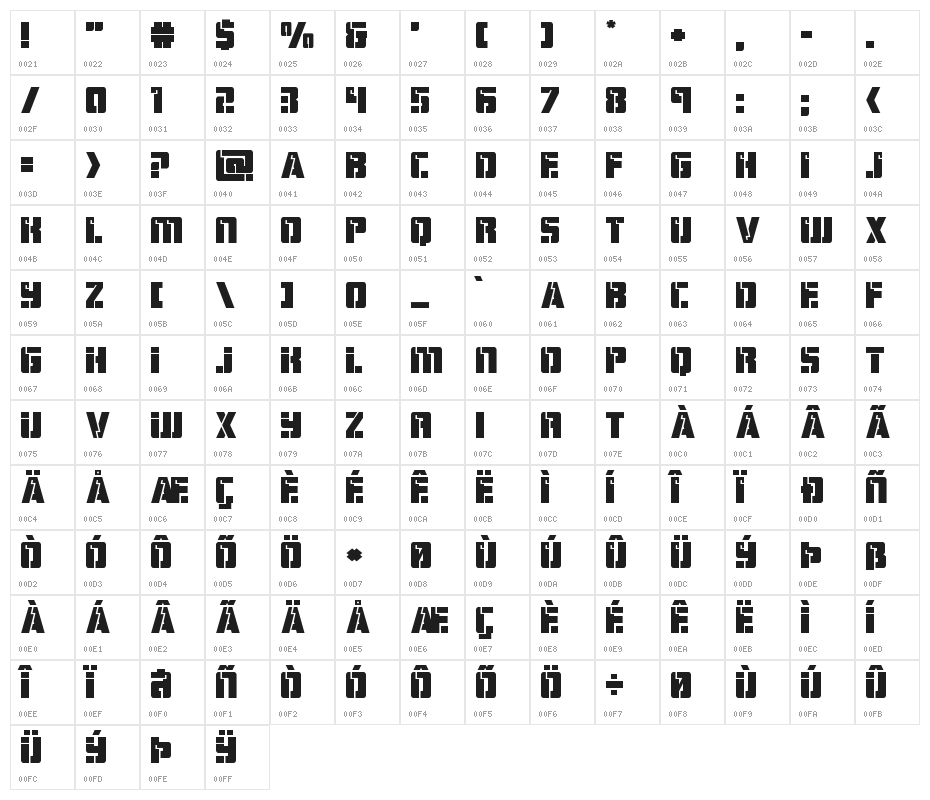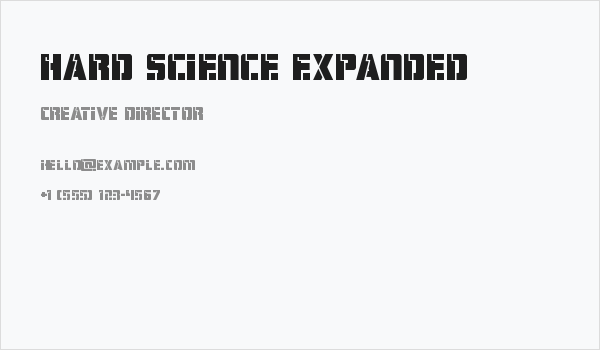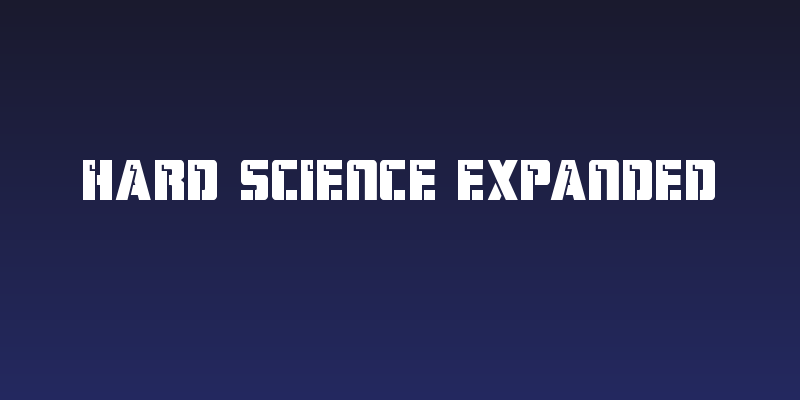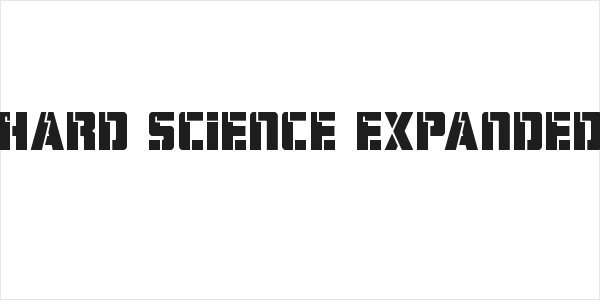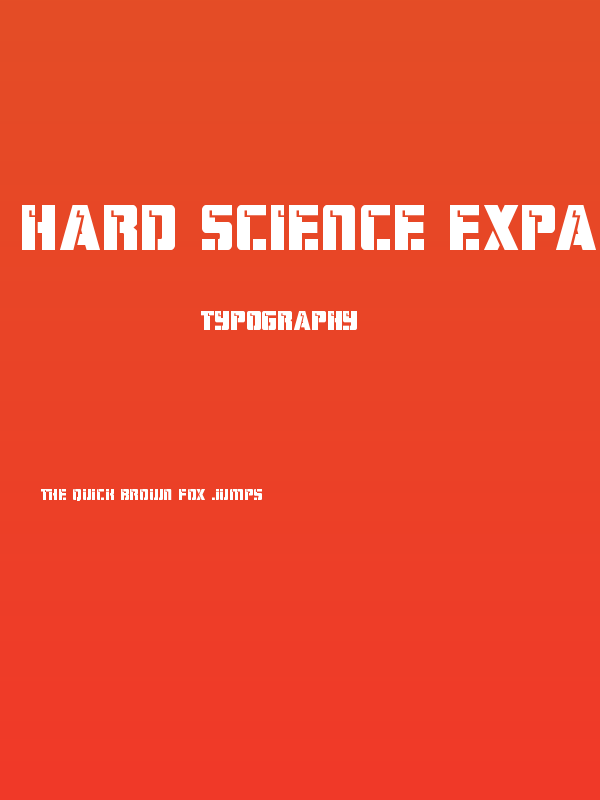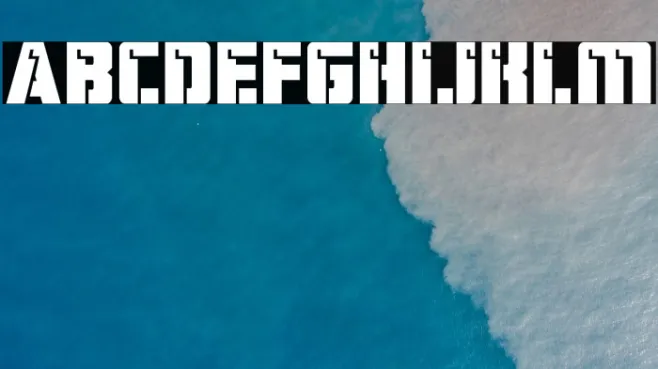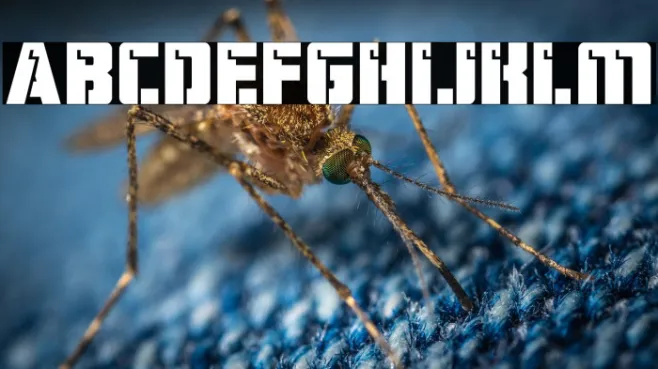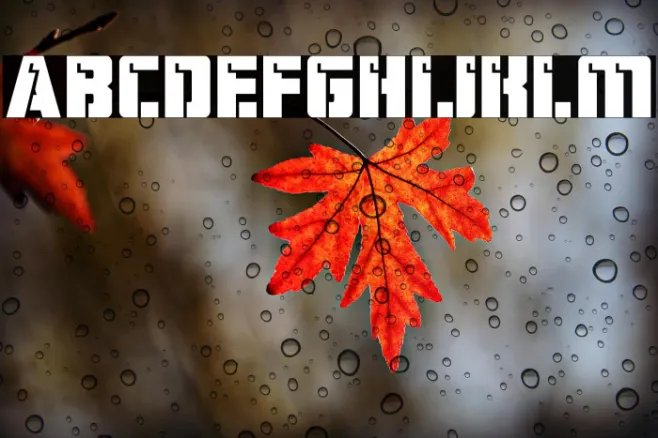
Hard Science Expanded Font
Hard Science Expanded Description
This font features a bold, geometric design with a strong, industrial feel. The characters are blocky and robust, with sharp angles and a consistent stroke width that conveys a sense of strength and stability. The uppercase and lowercase letters maintain a uniform height, enhancing the font's cohesive appearance. The numbers and special characters are equally bold, ensuring they stand out in any context. The font's design is reminiscent of stencil or military-style lettering, making it ideal for projects that require a commanding and assertive visual presence.
| Proposed Projects | Ideal for posters, signage, branding, and any project requiring a strong, industrial aesthetic. |